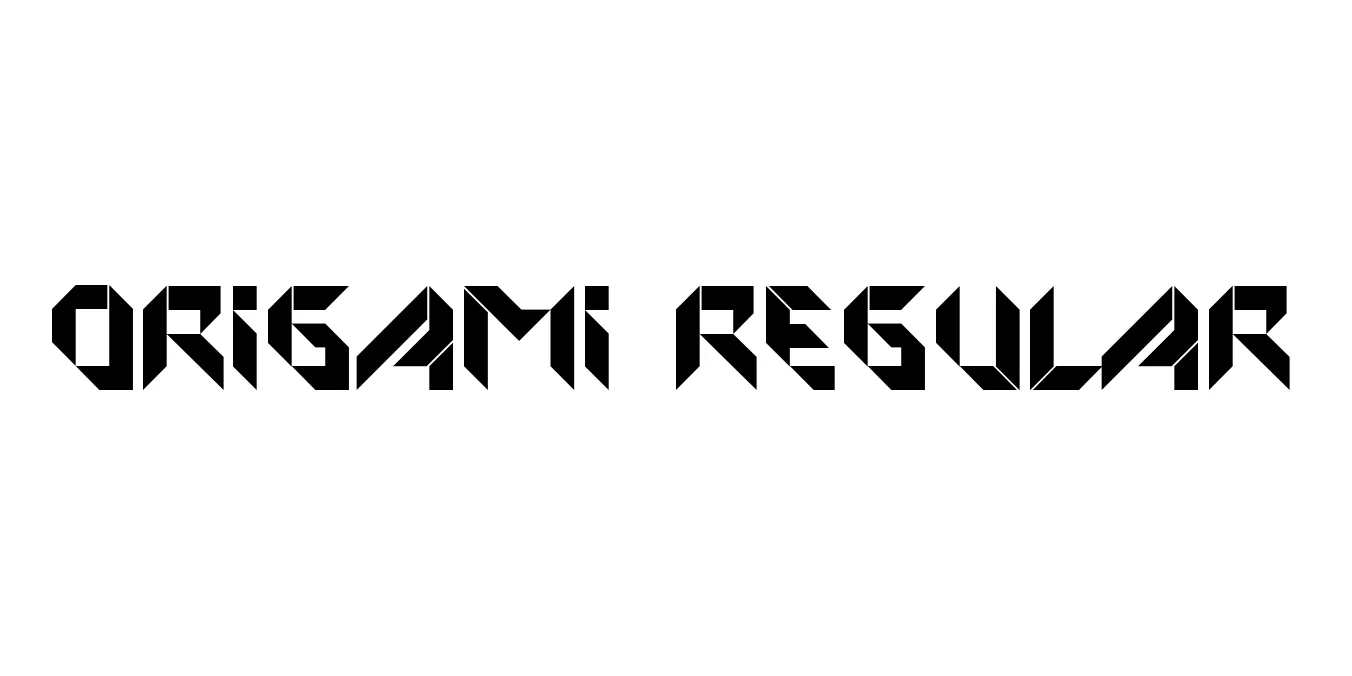
Origami Regular
Designed by Hajime Tsushima
Origami Regular is a sophisticated display typeface inspired by the traditional Japanese art of paper folding. Each character is meticulously constructed to simulate the sharp creases, angular bends, and layered appearance of folded sheets, resulting in a striking three-dimensional aesthetic. Its geometric precision and architectural feel make it an exceptional choice for designers looking to infuse their work with a sense of craftsmanship and structural integrity.
Since its release, the font has gained popularity in the creative community for its ability to balance minimalism with complex visual interest. While the shapes are highly stylized, Origami Regular maintains surprisingly high legibility, making it suitable for both digital screens and high-quality print production. It is frequently utilized in avant-garde branding, cultural exhibition materials, and innovative editorial layouts that require a unique, tactile typographic voice.
Origami Regular Best Uses
Perfect for creating sharp, memorable brand identities with a distinct geometric flair.
Ideal for high-impact visual communication in art galleries, workshops, or cultural events.
Adds a unique, tactile and premium feel to product boxes, labels, and stationary.
Works best as a bold statement piece for magazine headers and website banners.